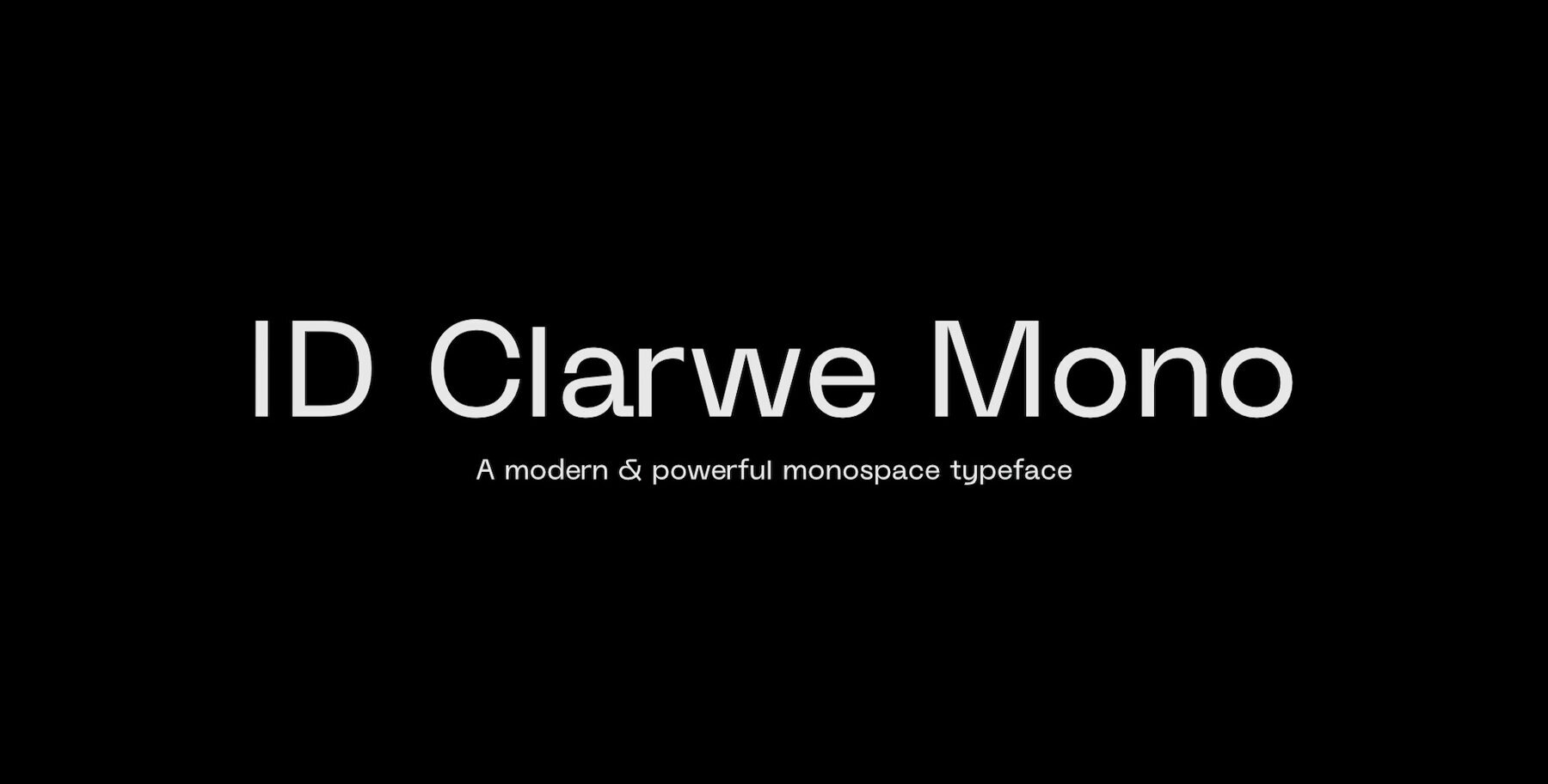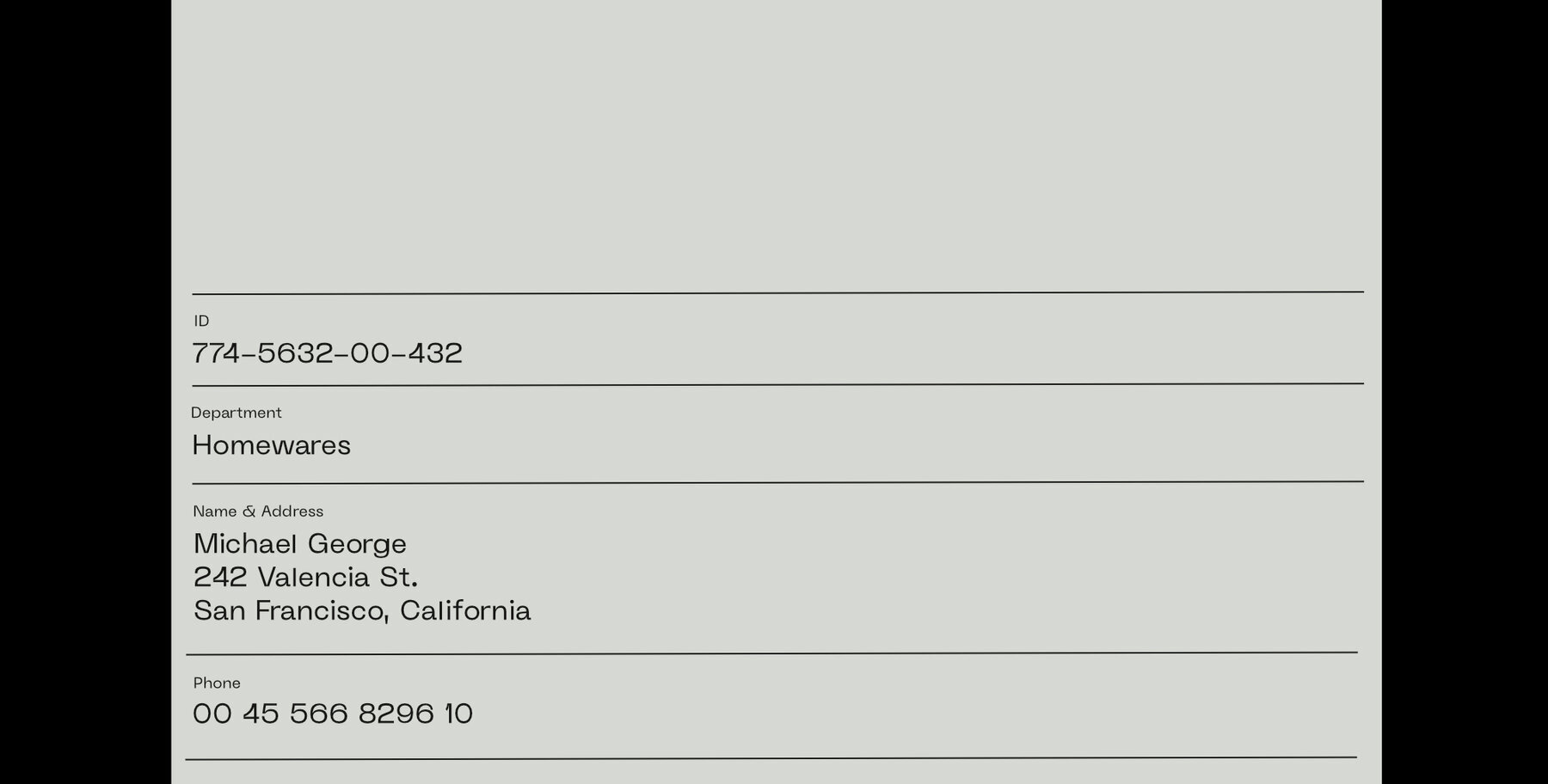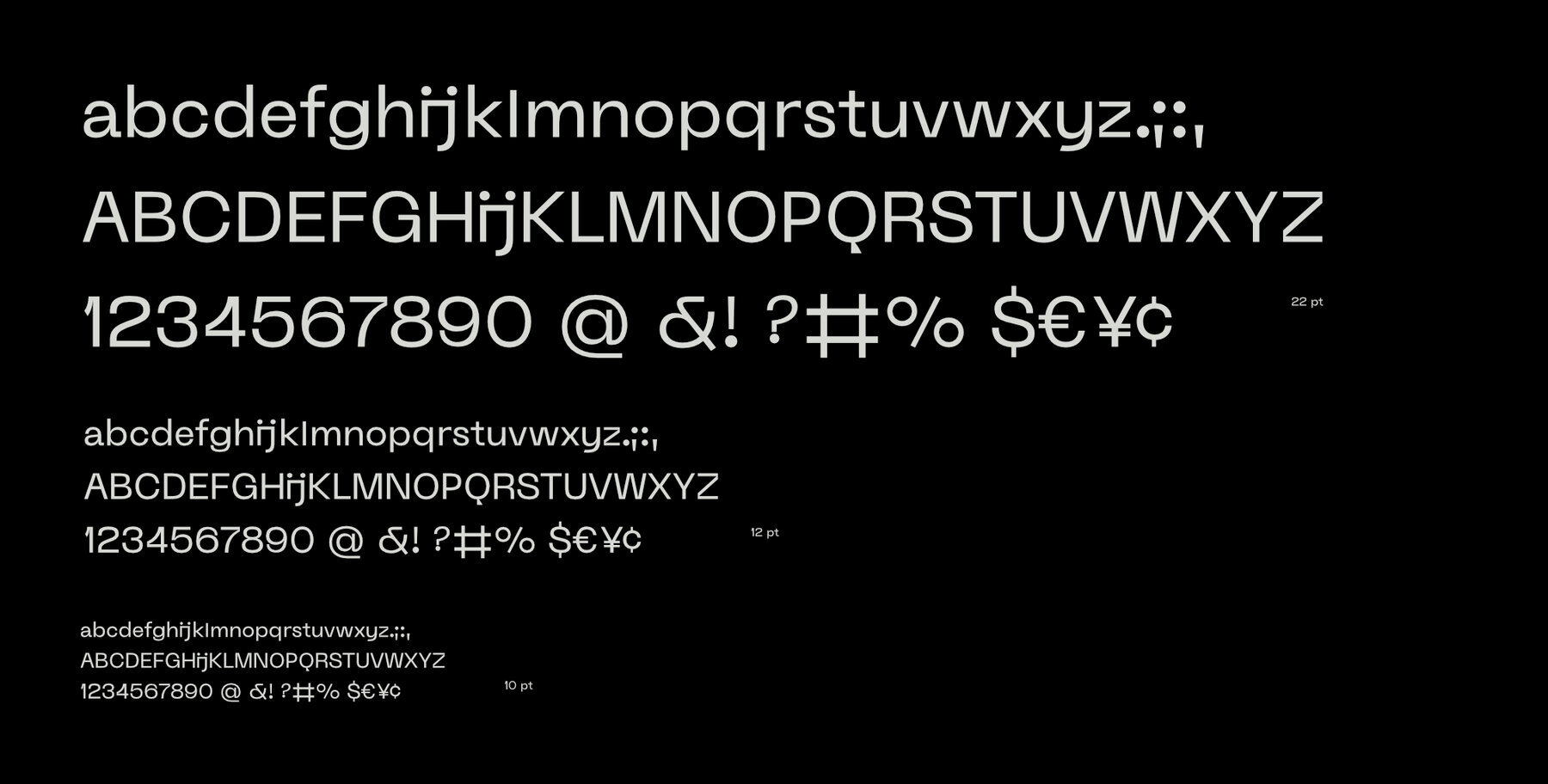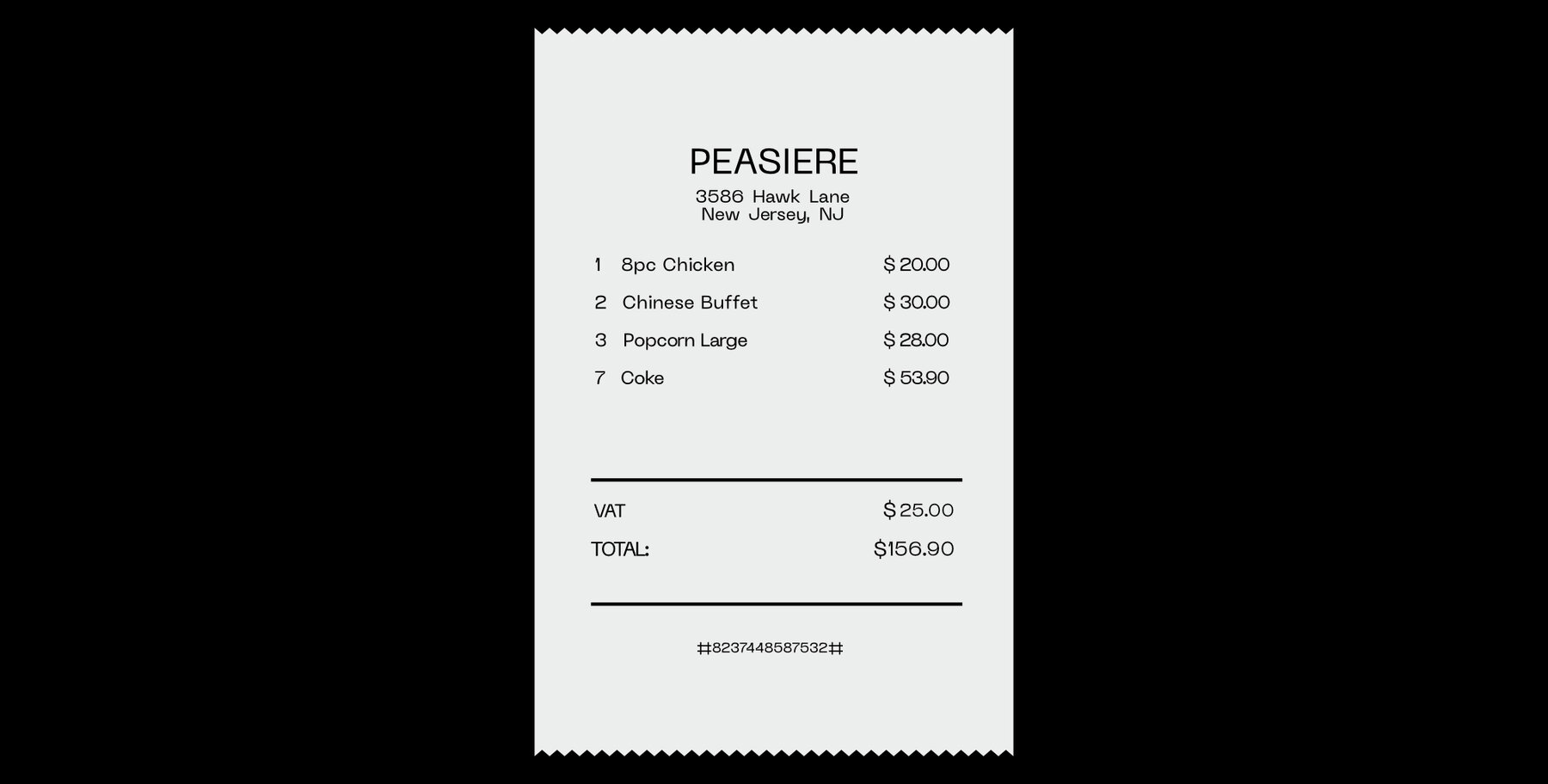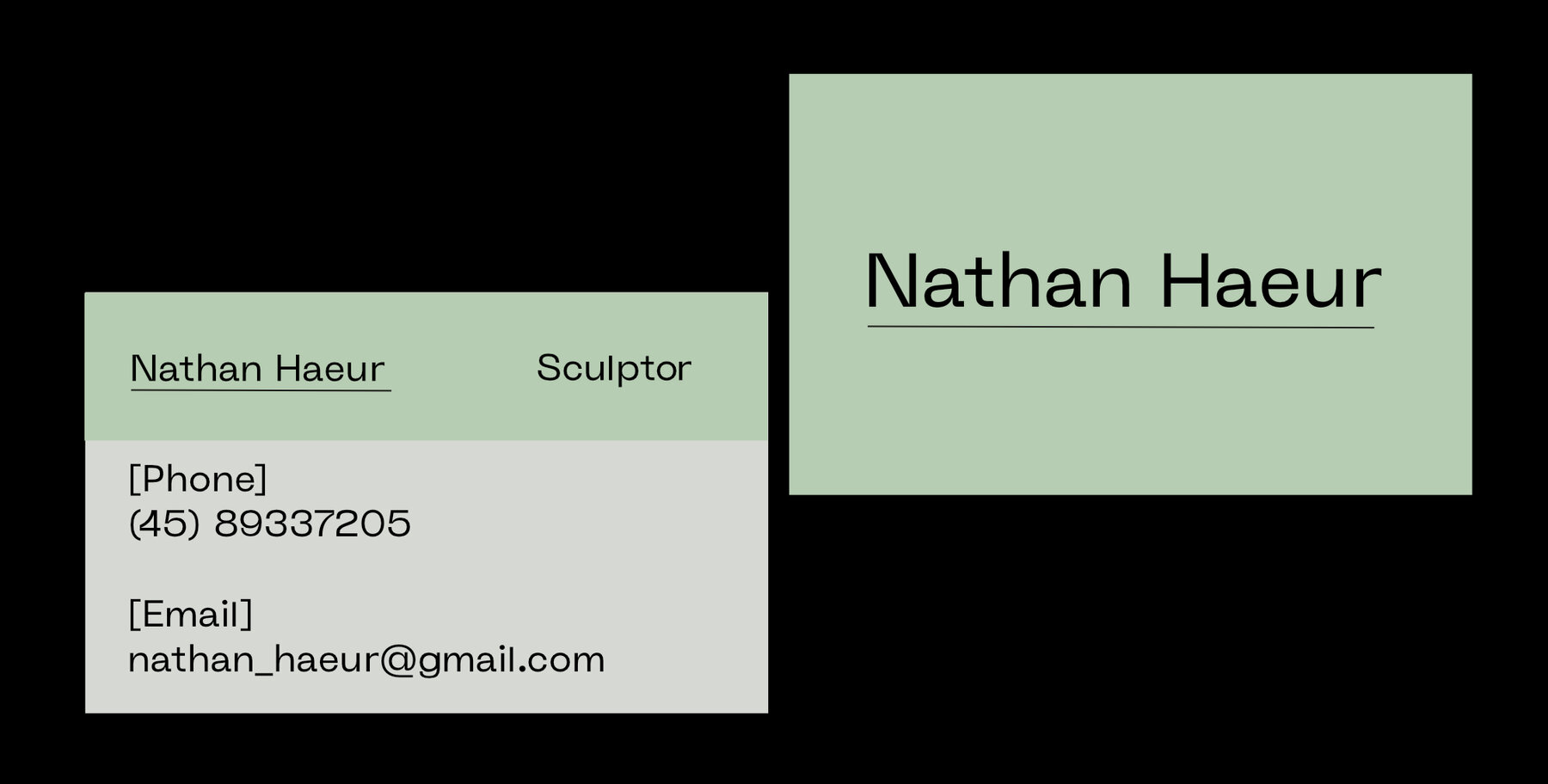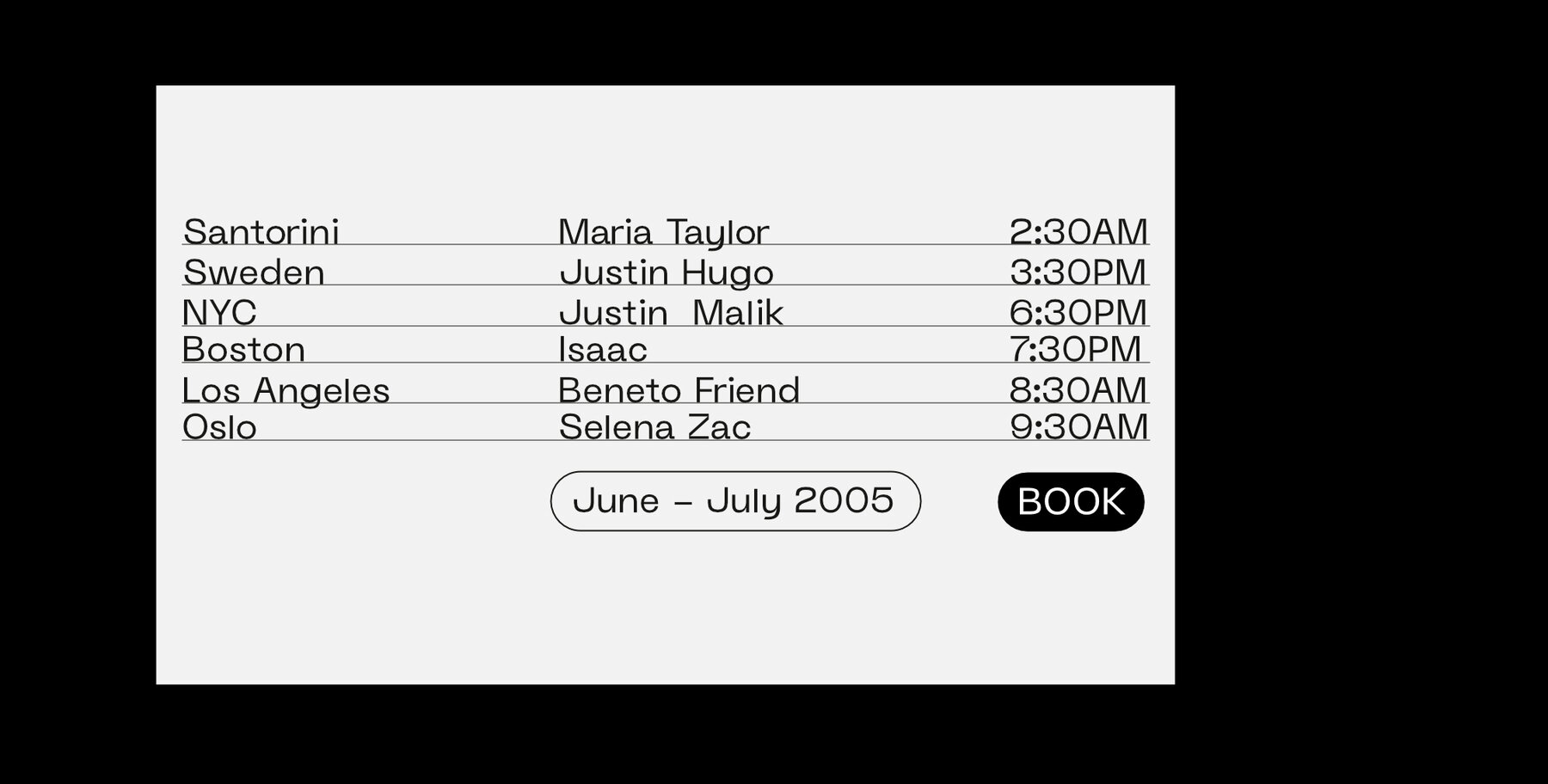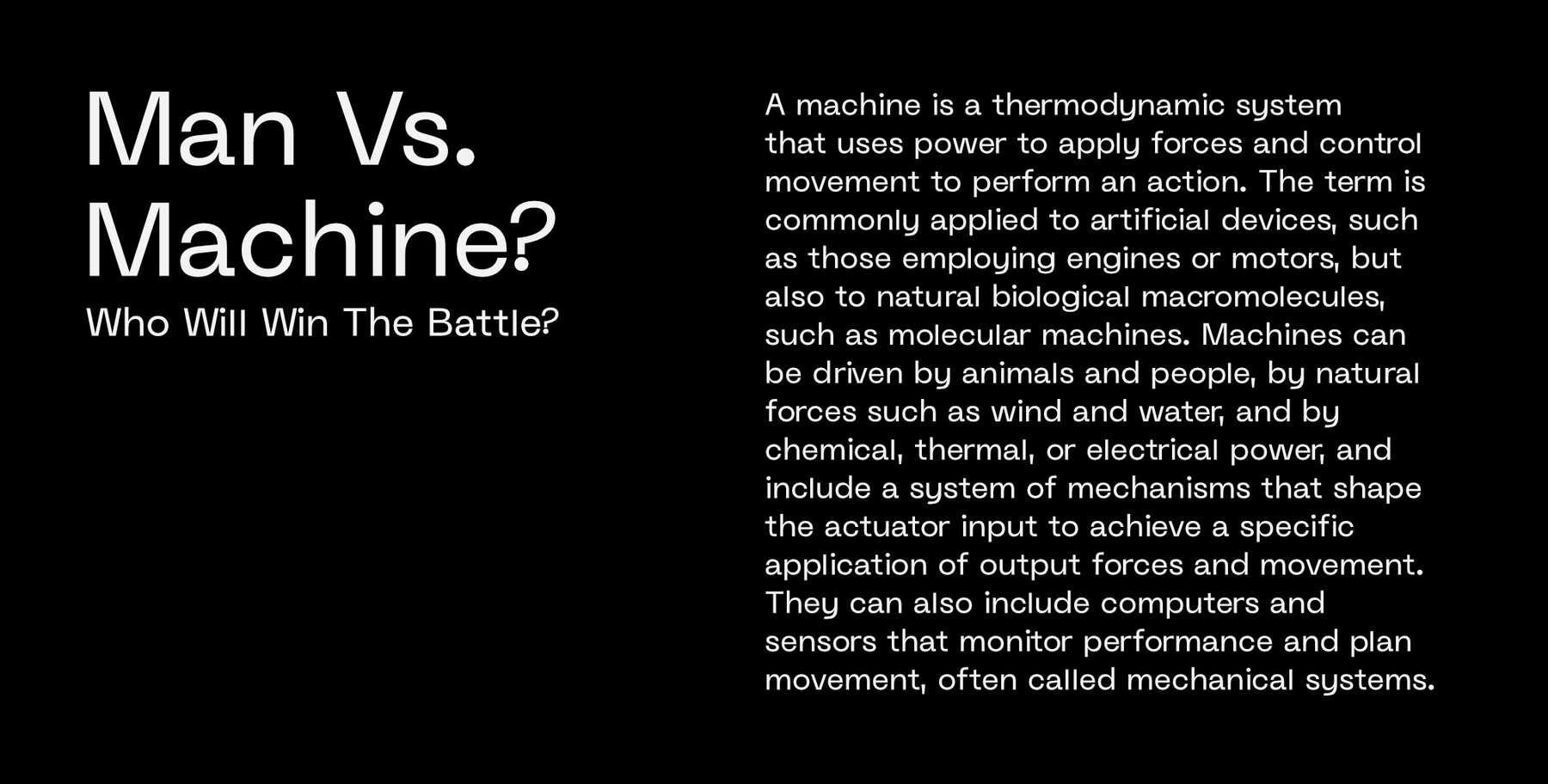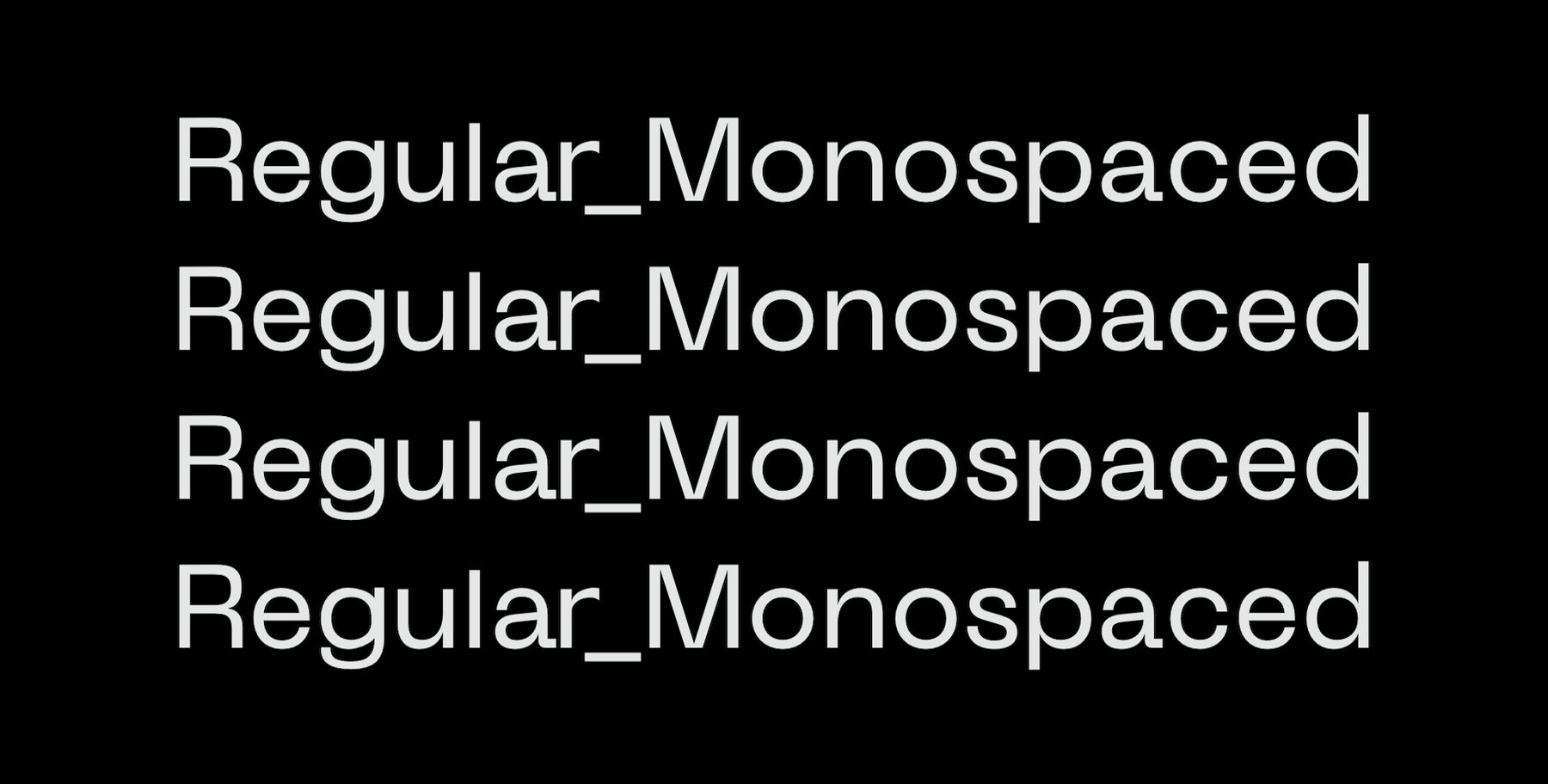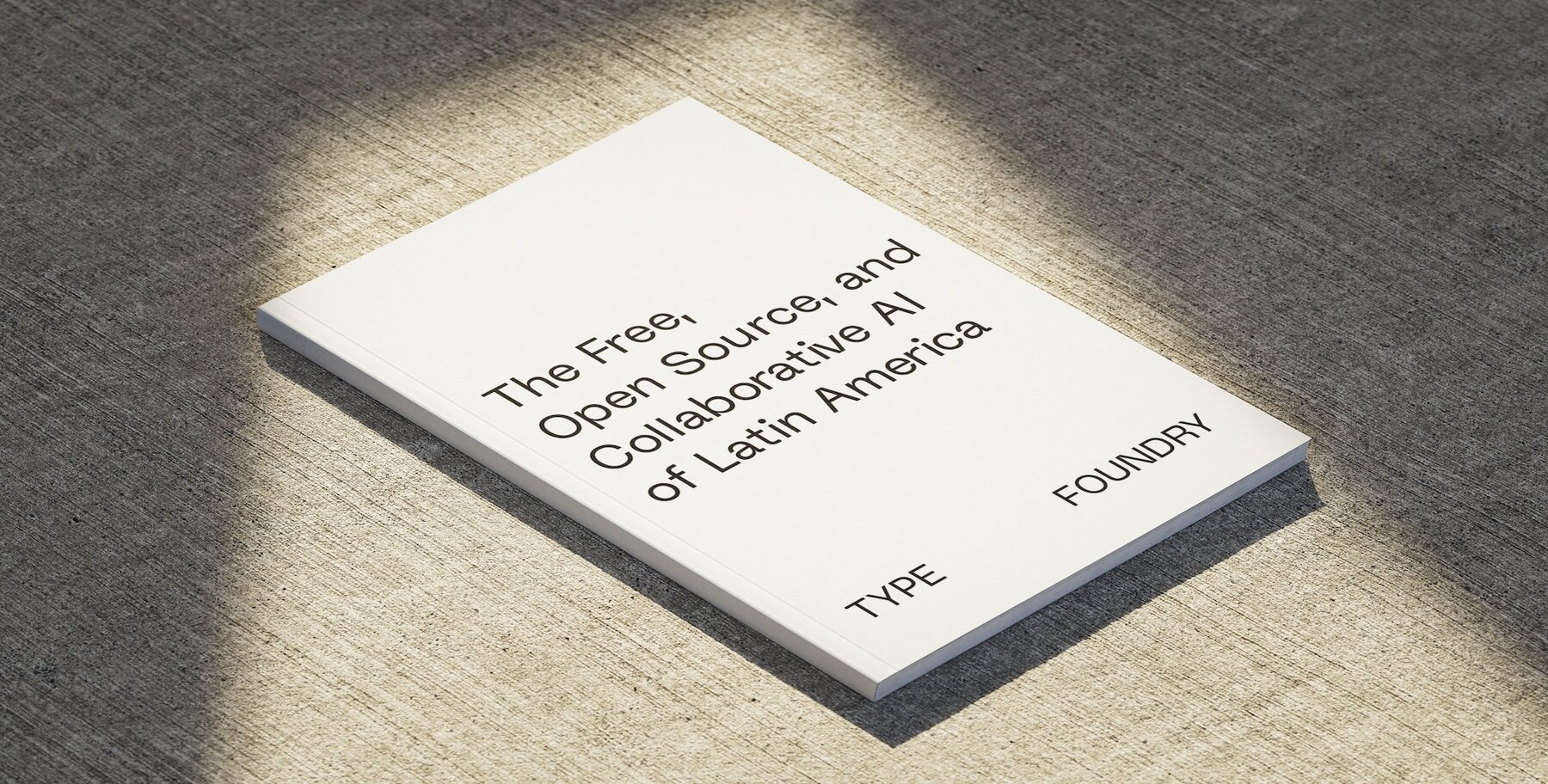
ID Clarwe Mono Font
ID Clarwe Mono Regular
Clarwe Mono merges contemporary design with the structured elegance of monospace type. This powerful typeface supports multiple languages and offers a clean, geometric aesthetic that combines precision with a distinctive character.Clarwe Mono: A Modern Typeface With Monospace Flair
Perfect for graphic designers looking to infuse their projects with structured elegance and wide-ranging functionality.